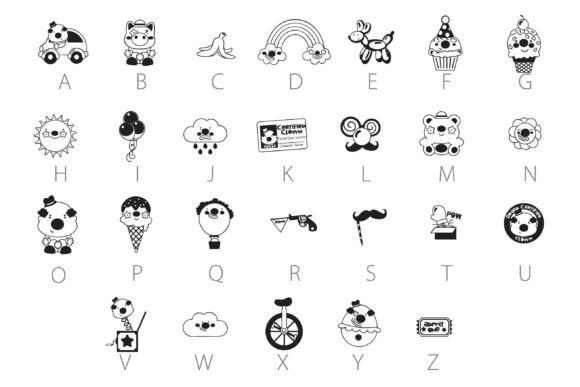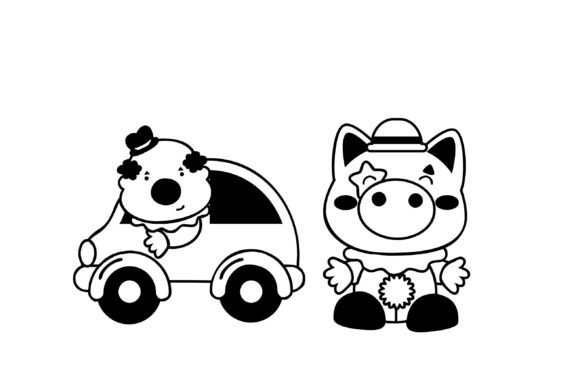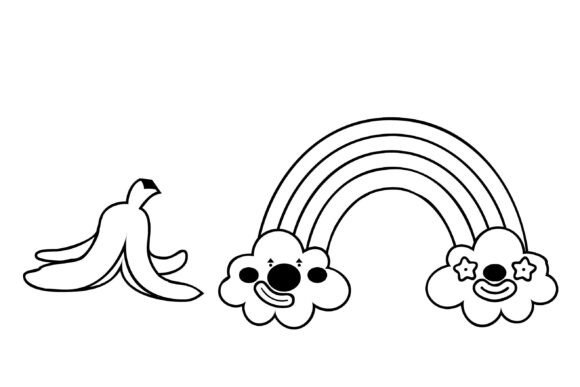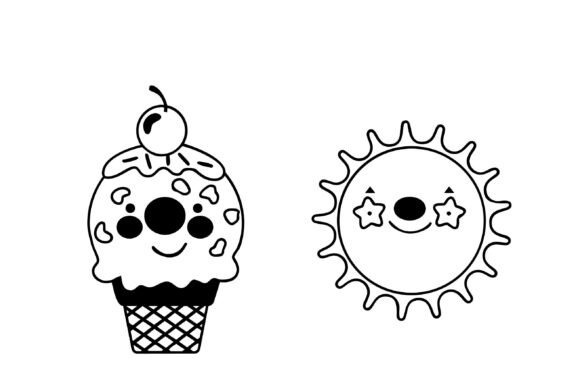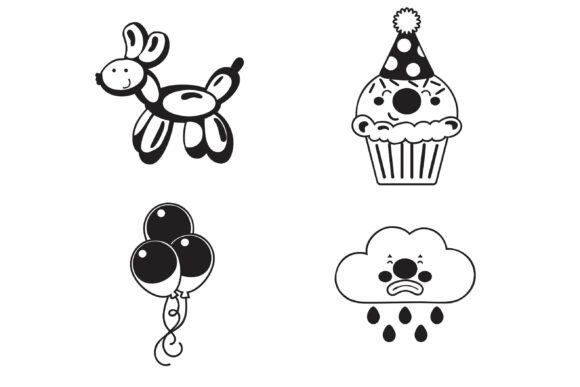
Clowning Around Dingbats Font: Unleash the Playful Magic of the Circus
Step right up and experience the playful magic of Clowning Around, a delightful dingbat font that celebrates all things circus and silly. This charming collection features a cast of characters and icons that are sure to bring a smile to your face and inspire your creativity. From miniature clown cars and balloon animals to “clown-faced” treats like cupcakes and ice cream cones, Clowning Around has everything you need to add a touch of whimsy to your designs.
A Delightful Collection of Dingbats
The Clowning Around dingbat font is a treasure trove of fun and playful illustrations, each one meticulously crafted to bring a sense of joy and wonder to your projects. The collection features a wide range of characters and icons, including:
- Miniature clown cars and other vehicles
- Balloon animals and other inflatables
- “Clown-faced” treats like cupcakes, ice cream cones, and candy
- Circus animals, such as lions, tigers, and bears
- Circus-themed icons, like tents, big tops, and clown horns
A Clean and Bold-Line Doodle Style
Every illustration in the Clowning Around dingbat font is rendered in a clean, bold-line doodle style with high-contrast black and white details. This style gives the illustrations a crisp, graphic look that is perfect for a wide range of applications, from digital stickers and birthday party invitations to playful branding and packaging.
The clean and simple design of the illustrations also makes them incredibly versatile, allowing you to use them in a variety of contexts and color schemes. Whether you want to add a pop of bright color or keep things simple and monochromatic, the Clowning Around dingbat font has got you covered.
The Clowning Around dingbat font is a dream come true for designers and crafters who are looking to add a touch of whimsy and personality to their projects. Whether you are designing for a youth event, creating digital stickers, or just want to add a sense of handcrafted joy to your project, this font has everything you need to bring your ideas to life.
- Unique and playful illustrations: The Clowning Around dingbat font features a unique and playful collection of illustrations that are sure to capture the attention of your audience.
- Versatile design: The clean and simple design of the illustrations makes them incredibly versatile, allowing you to use them in a wide range of contexts and color schemes.
- High-quality graphics: The illustrations in the Clowning Around dingbat font are high-quality graphics that are perfect for printing and digital use.